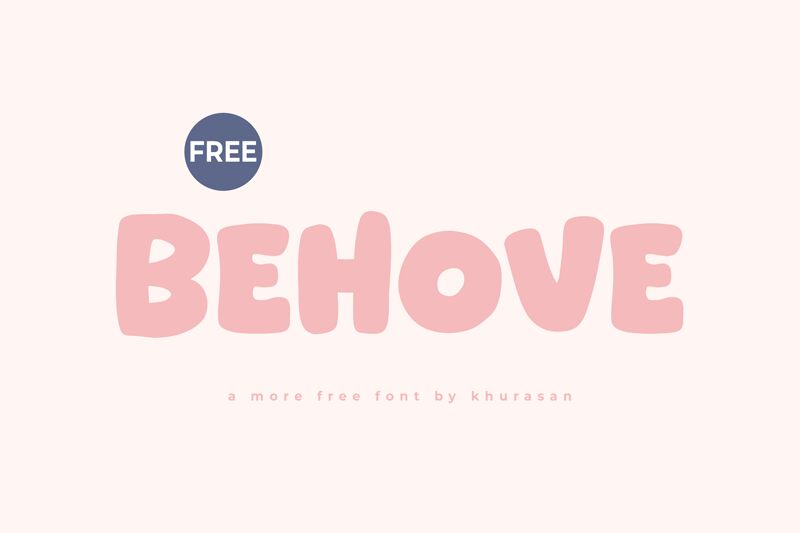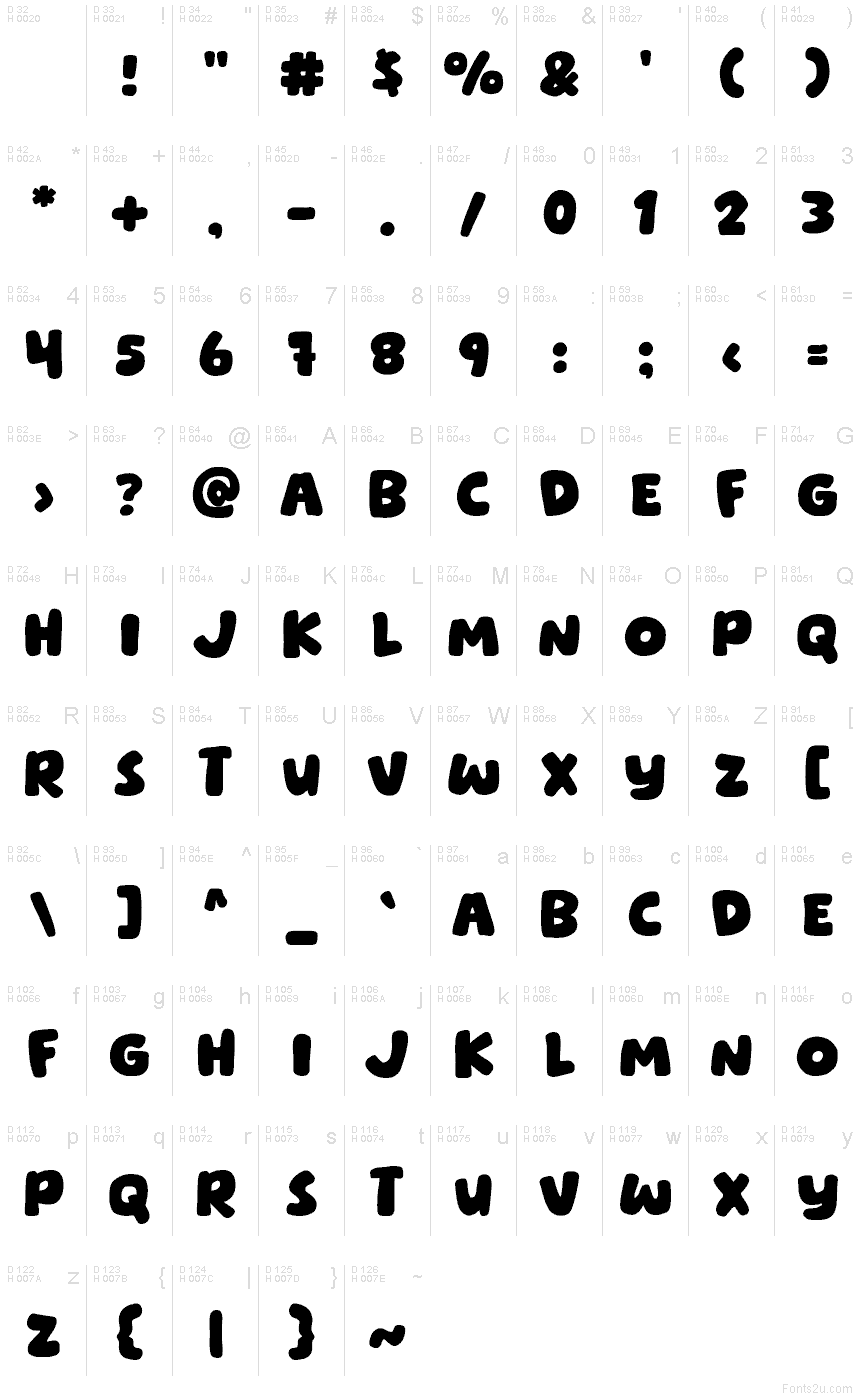
Behove
Behove font by Khurasan is a free cartoon display typeface with chunky, puffy shapes and softened corners that feel squishy and hand-inked. The letters sit close and bold, creating a lively bounce that grabs attention without getting messy, so headlines pop even at a glance. It brings a friendly, candy-coated energy that invites smiles and keeps copy legible at big sizes.
Using Behove, your playful ideas instantly read as fun and approachable. It shines on kids’ branding, snack or toy packaging, game logos, birthday invitations, YouTube thumbnails, and sticker sets. This free font’s rounded weight makes short phrases look full and punchy; keep body copy in a simple sans to balance the fluff, or track Behove slightly wider for extra air in busy layouts.